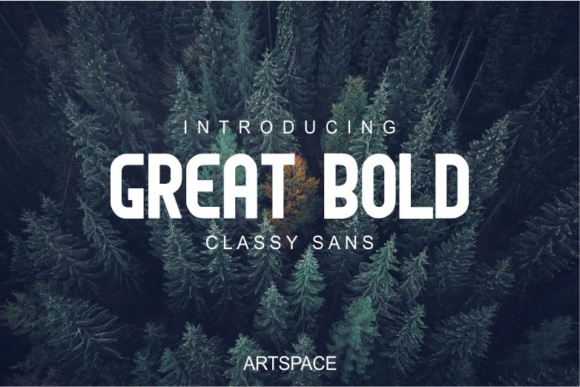
In a world saturated with monotonous fonts, the Great Bold Font emerges as a refreshing beacon of boldness and distinction, a font family crafted with the utmost care and precision by the renowned MJB Letters. With its innate ability to transform ordinary designs into captivating masterpieces, the Great Bold Font beckons you to embrace its alluring charm and unleash your creative genius.
Unleash the Power of Simplicity:
The Great Bold Font embodies the essence of simplicity, a testament to the adage that less is more. Its clean lines and unassuming presence allow your designs to shine without unnecessary distractions, creating a visual harmony that captivates and engages. In a world clamoring for attention, the Great Bold Font offers a sanctuary of clarity and elegance, allowing your message to resonate with unwavering impact.
Make a Statement with Boldness:
The Great Bold Font is not for the faint of heart. It is a font that commands attention, a font that refuses to blend into the background. With its thick strokes and unwavering confidence, it demands to be seen, to be heard, to be remembered. Whether you're crafting a logo that will leave an indelible mark or designing a website that exudes authority, the Great Bold Font is your steadfast companion, your secret weapon to cut through the noise and make a statement that reverberates.
A Versatile Ally for Every Creative Endeavor:
The Great Bold Font is a versatile chameleon, effortlessly adapting to a myriad of creative endeavors, from branding and marketing to web design and social media. Its inherent versatility stems from its ability to seamlessly blend with other design elements, enhancing them without overpowering them. Whether you're creating a sleek business card or a dynamic social media campaign, the Great Bold Font seamlessly integrates, becoming an integral part of your creative vision.
Experience the Greatness Within:
The Great Bold Font is more than just a font; it's an experience, a journey into the realm of boundless creativity. It's a font that ignites your imagination, propelling you to new heights of design excellence. With each use, you'll discover hidden depths, unlocking a treasure trove of creative possibilities. The Great Bold Font is not just a tool; it's a catalyst for greatness, an invitation to embark on a creative odyssey that will leave you breathless.